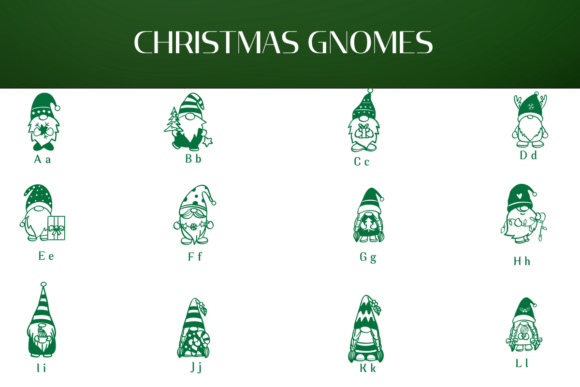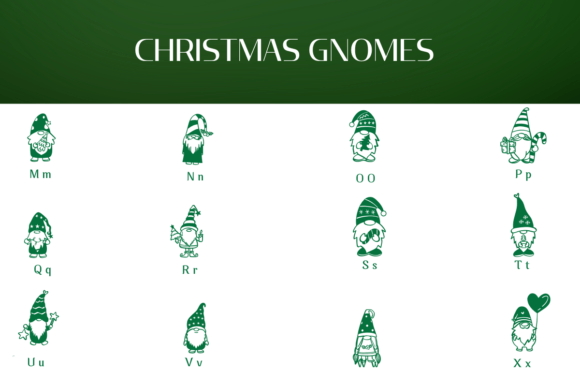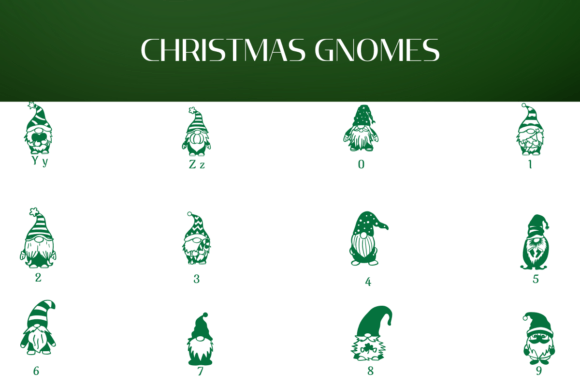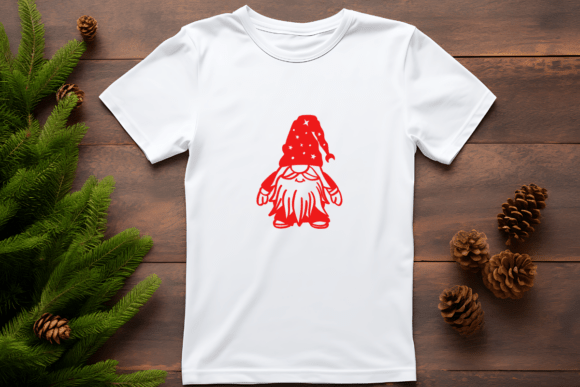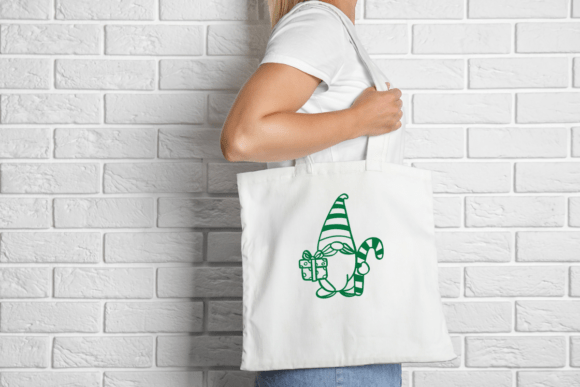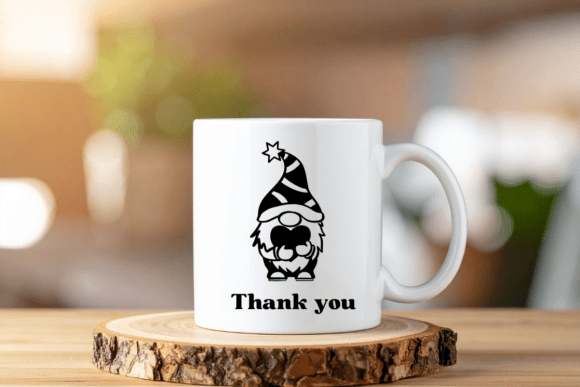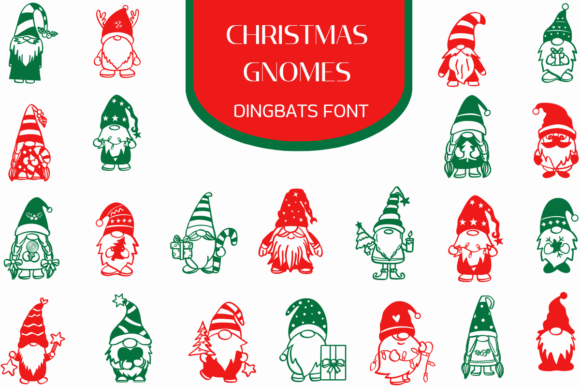
Introducing Christmas Gnomes Font: Spread Holiday Cheer with Adorable Gnome Illustrations
Are you looking for a unique and festive font to add a touch of magic to your holiday designs? Look no further than Christmas Gnomes Font, a delightful dingbat font packed with adorable gnome illustrations that bring the joy and wonder of the season to life. This charming font is perfect for designers, crafters, and holiday enthusiasts who want to create festive and fun projects that spread cheer and creativity.
What is Christmas Gnomes Font?
Christmas Gnomes Font is a special dingbat font that features a collection of delightful Christmas gnome illustrations. Each character in the font is carefully designed to showcase a charming gnome holding a variety of festive items, such as gifts, trees, candy canes, or stars. These whimsical illustrations are sure to bring a smile to anyone’s face and add a playful touch to any holiday project.
Christmas Gnomes Font is incredibly versatile and can be used for a wide range of holiday projects, including:
- Gift tags and wrapping paper
- Ornaments and decorations
- T-shirt designs and other apparel
- DIY crafts and patterns
- Stickers and festive labels
- Personalized gifts and more
Whether you’re a designer, crafter, or simply a holiday enthusiast, Christmas Gnomes Font is the perfect tool to add a touch of festive fun to your projects.
Key Features of Christmas Gnomes Font
Here are some of the key features that make Christmas Gnomes Font so special:
- Adorable illustrations: Each character in the font features a unique and charming gnome illustration that’s sure to delight.
- Fully scalable: The font is fully scalable, making it perfect for use in a variety of projects, from small stickers to large banners.
- Compatible with cutting machines: Christmas Gnomes Font is compatible with cutting machines, making it a favorite among crafters and designers.
Why Choose Christmas Gnomes Font?
There are many reasons why Christmas Gnomes Font is the perfect choice for your holiday projects. Here are just a few:
- Adds a touch of magic: The adorable gnome illustrations in this font add a touch of magic and wonder to any project.
- Versatile: Christmas Gnomes Font can be used for a wide range of projects, from digital artwork to printable creations.
- Fun and playful: The font’s playful and fun illustrations are sure to bring a smile to anyone’s face.
- Perfect for the holiday season: Christmas Gnomes Font is the perfect tool to add a touch of festive cheer to your holiday projects.
Tips for Using Christmas Gnomes Font
Here are a few tips for using Christmas Gnomes Font in your projects:
- Experiment with different sizes: The font’s scalability makes it perfect for use in a variety of projects, from small stickers to large banners.
- Combine with other fonts: Try combining Christmas Gnomes Font with other fonts to create unique and interesting text effects.
- Use for digital and print projects: The font’s versatility makes it perfect for use in both digital and print projects.